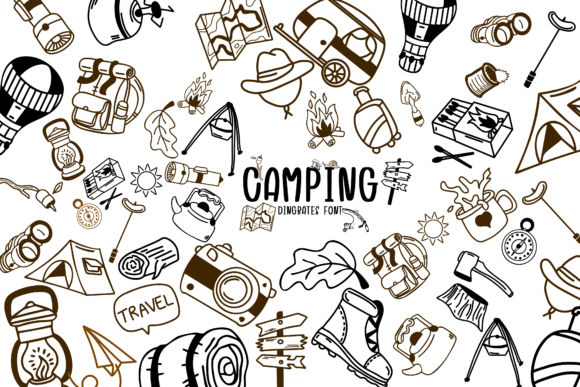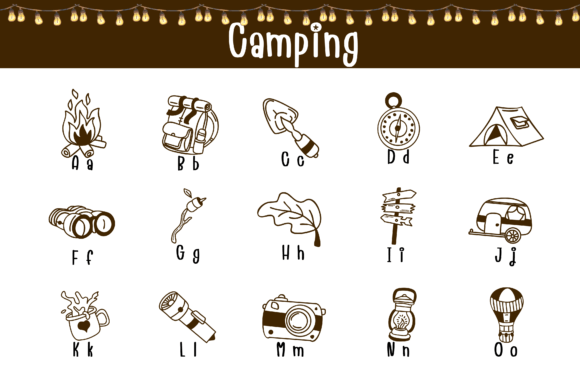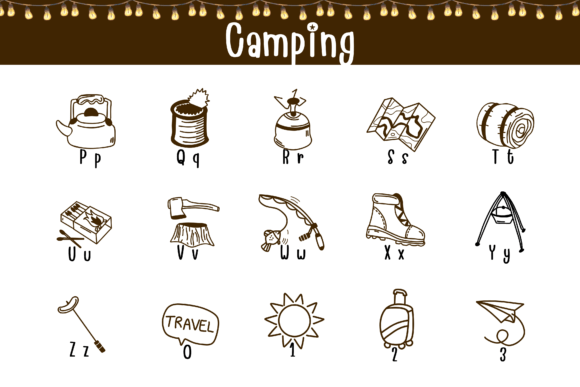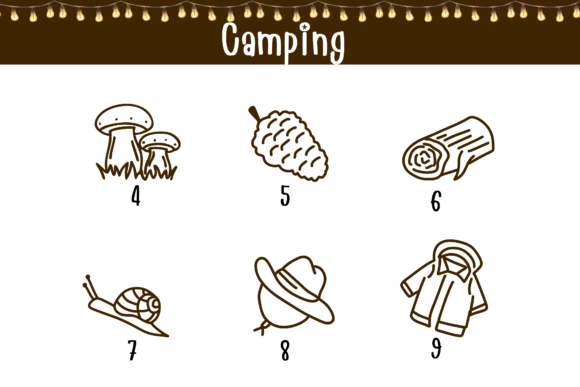
Camping Font
About the Camping Font
From logos to headlines, the Camping Font is the perfect choice for making a lasting impression. Camping is a dingbats font with theme with a sketch style. This font can enhance your creative projects such as wedding invitations, DIY, crafts, decorations, logos, and many other creative ideas.
Camping Font’s sketched style lends itself perfectly to projects requiring a hand-drawn, rustic feel. It excels in logos, short headlines, and packaging design where its playful nature adds visual charm. Use it sparingly in decorative elements within larger layouts; it’s not ideal for body text or UI due to its low readability in extended passages.
Consider pairing Camping Font with a clean sans-serif like Open Sans for a balanced contrast, or a classic serif font such as Garamond for a more sophisticated look. For a bolder statement, a geometric sans-serif like Futura could work well.
The overall personality is friendly and approachable, conveying a sense of warmth and handcrafted authenticity, making it suitable for brands focused on outdoor activities, crafts, or anything with a whimsical, nature-inspired aesthetic.